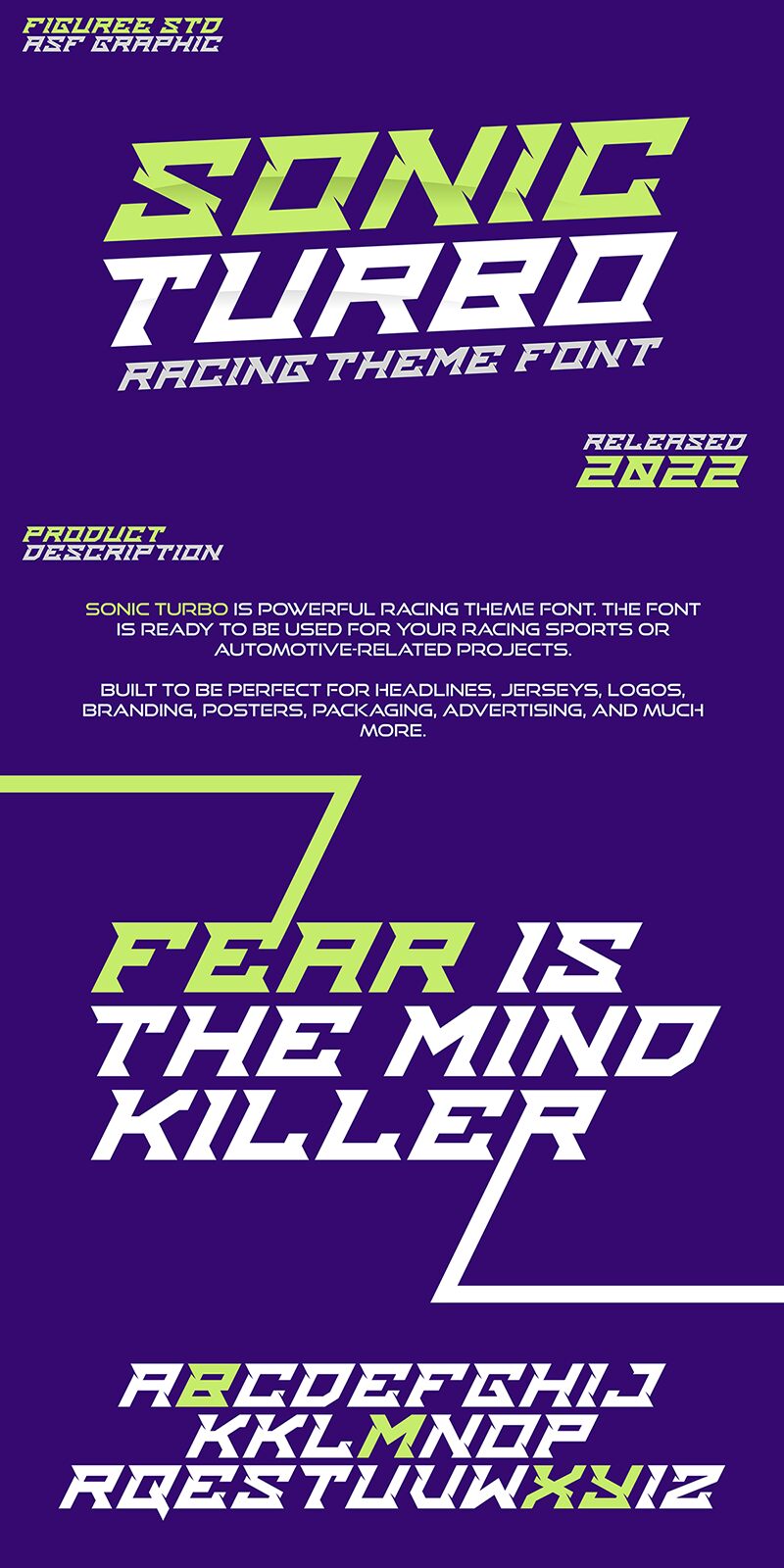
Sonic Turbo
Sonic Turbo, a bold and dynamic display font crafted by Figuree Studio, exudes a powerful, futuristic aesthetic. Its expanded, techno-inspired letterforms captivate with their striking silhouettes and intricate details, evoking a sense of speed and technological prowess. This font's unique blend of muscular shapes and sleek lines makes it a standout choice for projects seeking a bold, attention-grabbing visual impact.
Sonic Turbo's expansive design lends itself seamlessly to a variety of applications, from eye-catching headings and logos to dynamic branding and packaging elements. Its bold, expanded construction ensures excellent legibility across various mediums, making it a versatile option for digital and print designs that demand a strong, impactful presence.